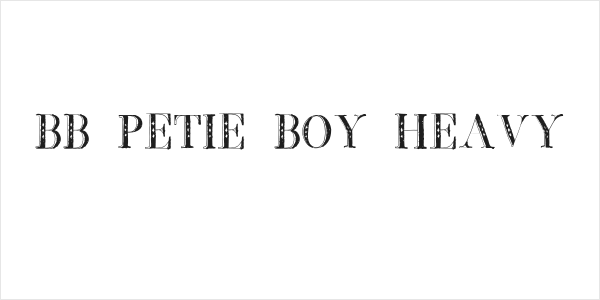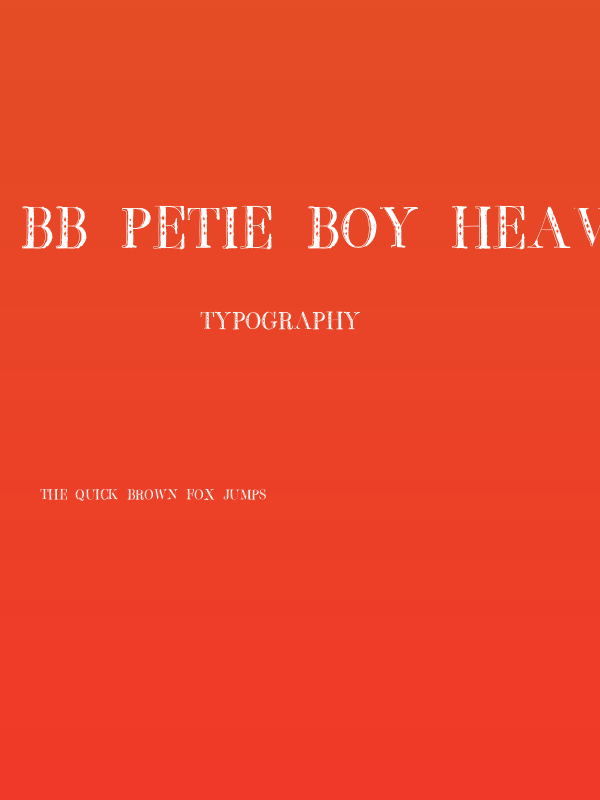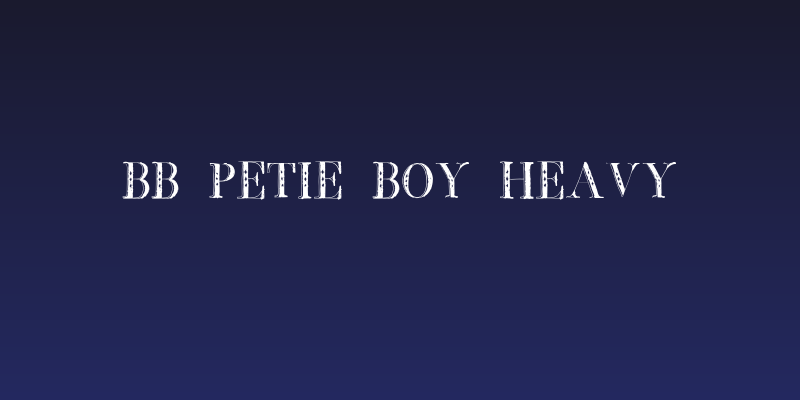
BB Petie Boy Heavy Font
BB Petie Boy Heavy Description
This font features a bold and decorative style with a vintage flair. The characters are adorned with intricate patterns and textures, giving them a unique and eye-catching appearance. The uppercase and lowercase letters maintain a consistent design, with a strong emphasis on boldness and decorative elements. The numbers and special characters follow the same ornate style, making the font suitable for projects that require a touch of elegance and creativity. The overall design is reminiscent of classic signage or poster fonts, with a modern twist that makes it versatile for various applications.
| Proposed Projects | Ideal for posters, branding, packaging, and any project that requires a decorative and bold typeface. |